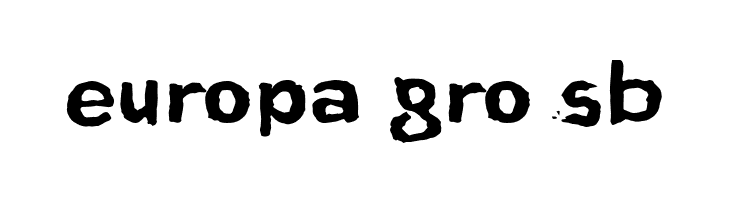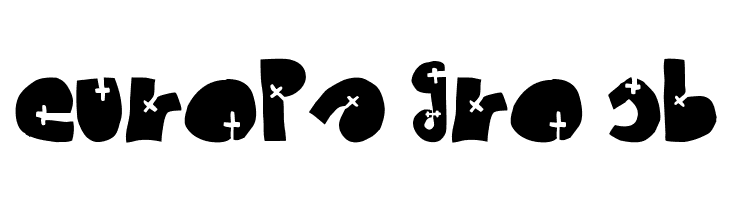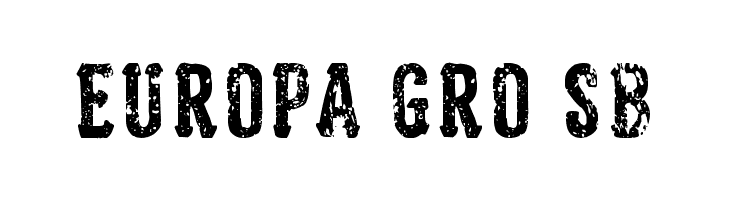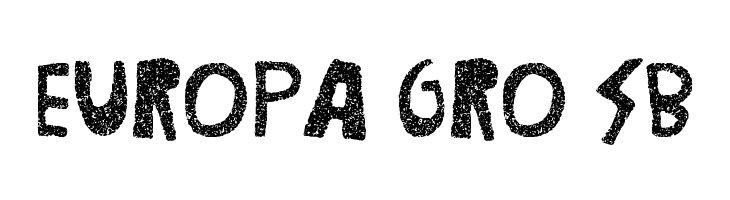
A bold, angular display font with a graffiti-inspired style.
A bold, decorative font with vintage woodcut-style detailing and ornate flourishes.
A bold, textured font with a distressed, vintage woodcut appearance.
Ornate crown and coronet illustrations in a vintage style.
A whimsical, decorative font featuring playful, vintage-style illustrations of little people.
Illustrative font with mythological figures as glyphs.
A decorative, bird-themed illustrative font.
A decorative font with intricate illustrations within each letter.
A decorative, illustrative font with intricate, woodcut-style artwork in each character.
An ornate, decorative font with intricate illustrations within each letter.
A bold, decorative typeface with a vintage, playful style and intricate detailing.
Intricate animal-themed decorative glyphs with a woodcut style.
A decorative, woodcut-style font with intricate detailing and a vintage aesthetic.
Ornate woodcut-style font with pictorial glyphs.
Ornate pictorial dingbat font with vintage woodcut illustrations.
A bold, textured font with a hand-carved, woodcut style.
A bold, woodcut-style font with intricate, engraved detailing.
A narrative, woodcut-style decorative font with each character as a detailed illustration.
A bold, textured font with circular backgrounds and a woodcut style.
A bold, outlined font with a playful, retro comic book style.
A decorative dingbat font with diverse octopus illustrations.
A rustic, handcrafted font with a woodcut print style.
A bold, distressed font with a halftone texture and urban flair.
A rustic, handcrafted font with an organic, woodcut appearance.
A Gothic font with snow-themed accents, perfect for winter designs.
A bold, playful handwritten font with rounded, fluid characters.
A bold, graffiti-inspired font with thick, rounded strokes and a playful urban style.
A bold, distressed font with a grunge aesthetic and textured splatters.
A modern, bilingual font combining sans-serif Roman and Japanese characters.
A bold, decorative font with an American flag-inspired pattern of stars and stripes.